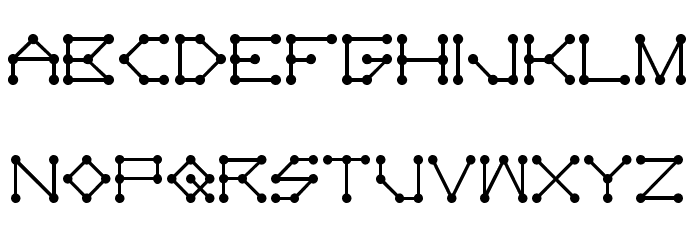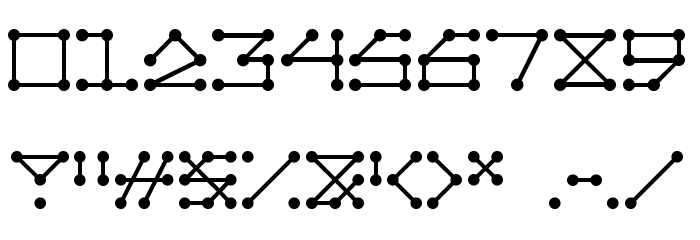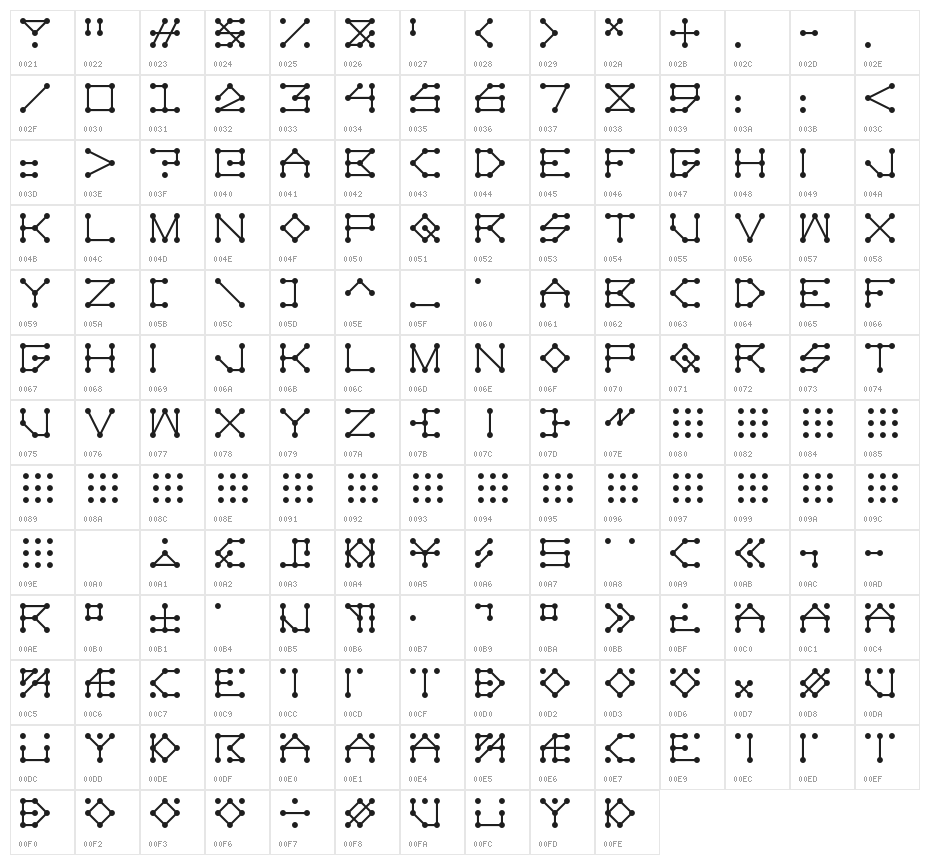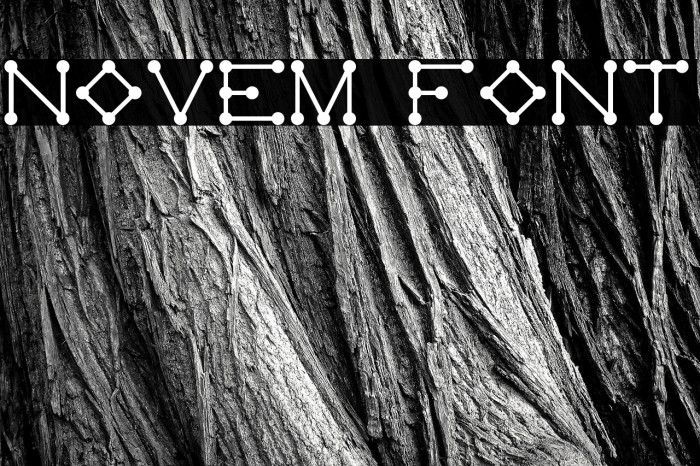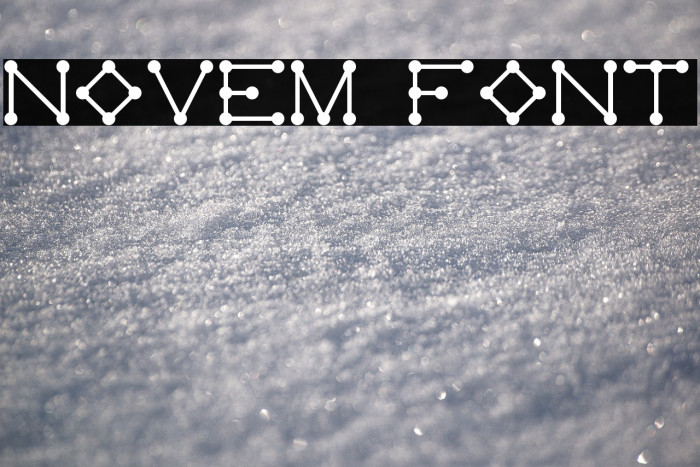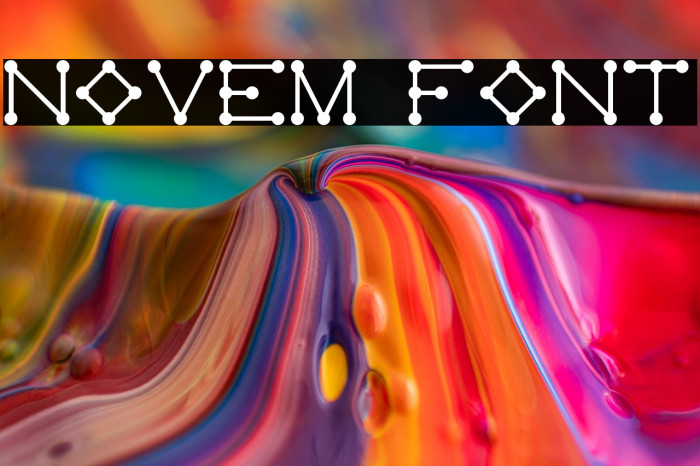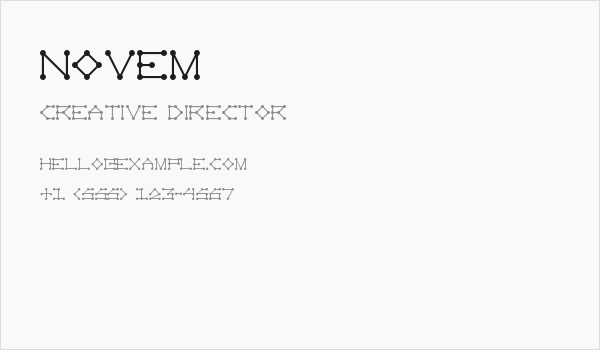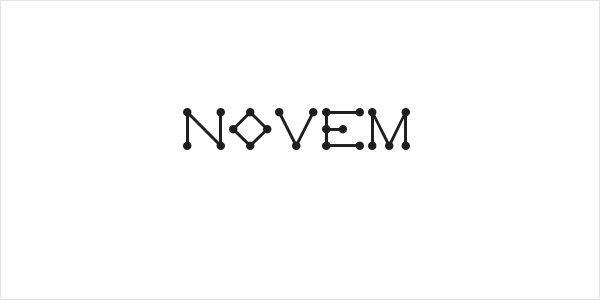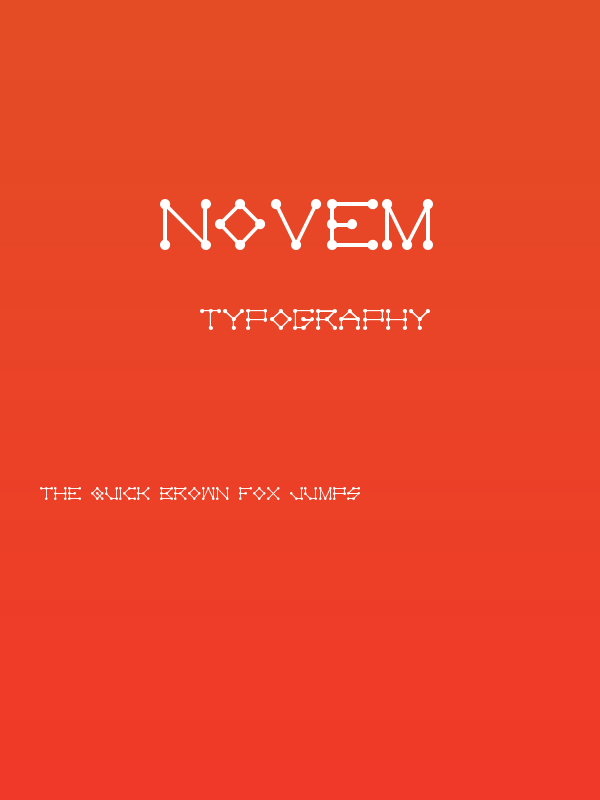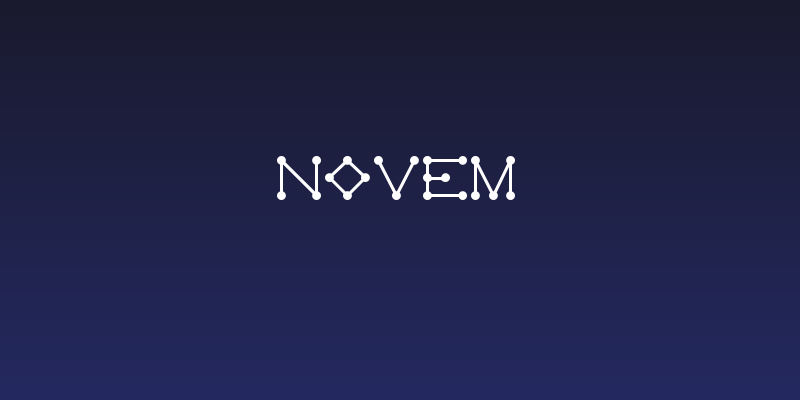
Novem Font
This font features a unique design where each character is constructed using a series of dots connected by lines, resembling a constellation or a network of nodes. The geometric and structured appearance gives it a modern and technological feel, while the consistent use of dots and lines across all characters maintains a cohesive look. The uppercase and lowercase letters, as well as numbers and special characters, follow this distinct pattern, making it highly recognizable and suitable for creative and futuristic projects.
A modern, dot-connected font with a geometric, technological style.
- Proposed Projects: Ideal for tech-related branding, futuristic posters, digital art, and innovative product packaging.